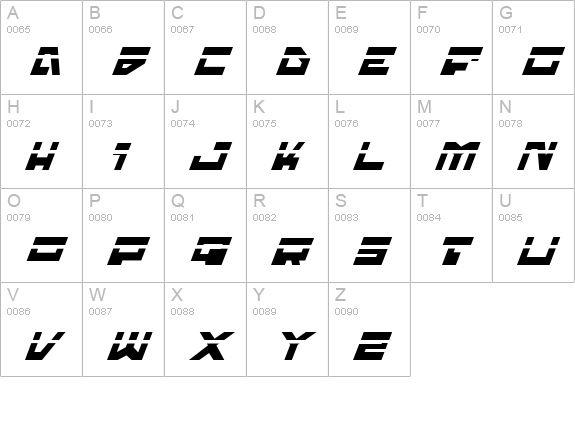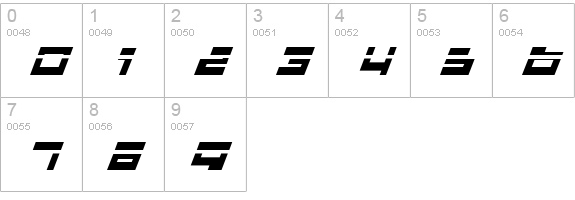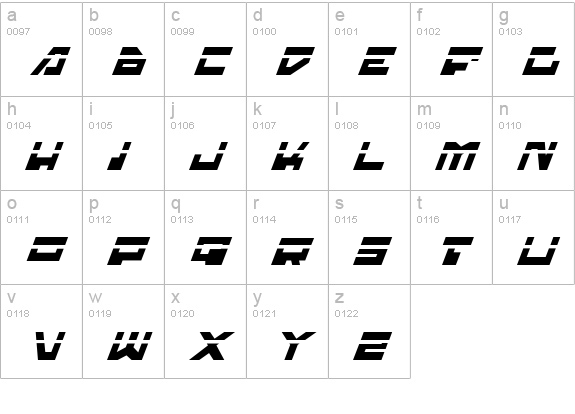
Trajia Laser Italic is a distinctive, italic variant in the Trajia typeface family \xE2\x80\x94 well suited to design and typography projects.
Trajia Laser Italic is a stunning and sophisticated font that exudes elegance and modernity. Its sleek lines and tapered edges give it a sharp and dynamic appearance, perfect for adding a touch of style to any design project. The italicized version of Trajia Laser adds a sense of movement and flair, making it ideal for creating eye-catching headings or emphasizing important text. What makes Trajia Laser Italic even more appealing is that it is available for free download at FontsMarket.com. This means that you can easily access this exquisite font and use it in your personal or commercial projects without any cost. Whether you're designing a website, creating a poster, or crafting a logo, Trajia Laser Italic is sure to elevate your design with its unique and captivating aesthetic. Don't miss out on this opportunity to enhance your creations with the bold and dynamic Trajia Laser Italic font. Download it for free today and unleash your creativity with this stunning typeface.